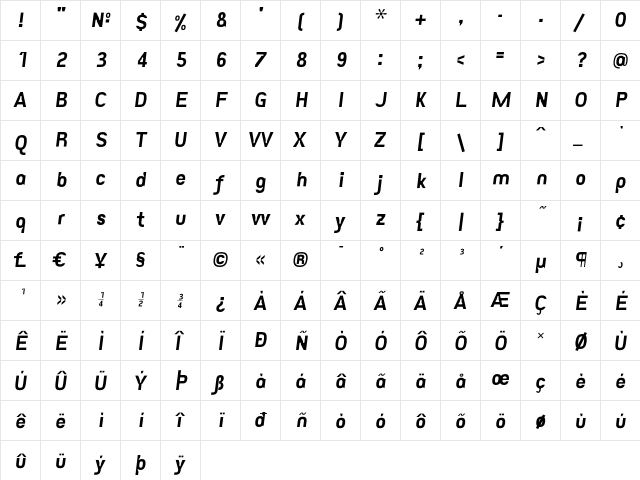
Eunuverse BoldItalic
Design Context for Eunuverse Typeface
Eunuverse is a composed and adaptable typeface that performs quietly and consistently across a wide range of design contexts. Its italic angle brings a sense of urgency and motion to the letterforms. The heavy weight commands attention and anchors typographic hierarchies.